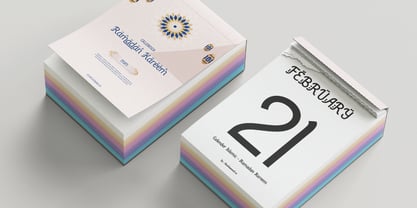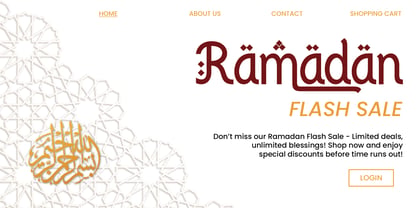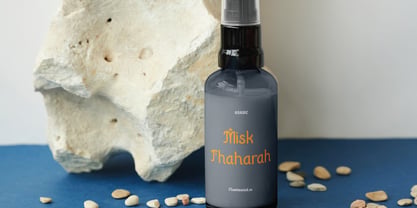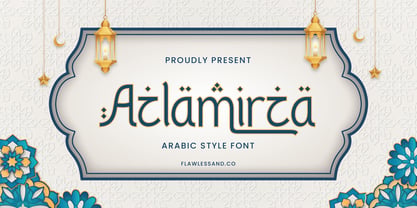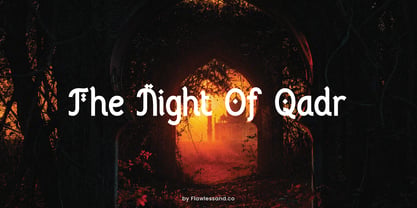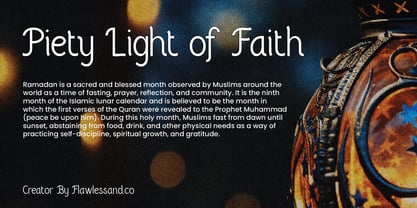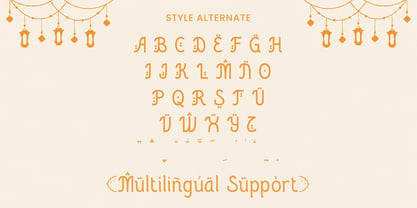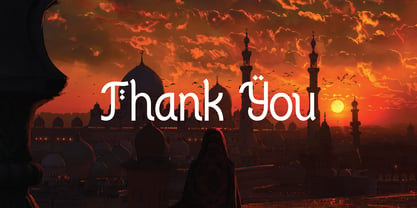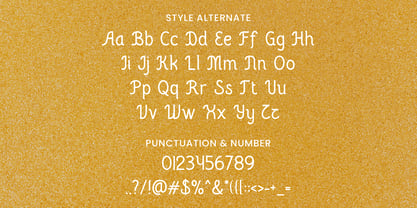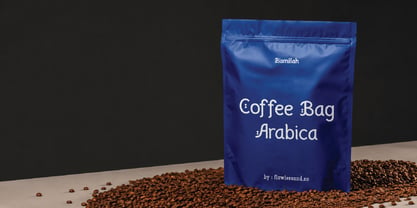
Azlamirza
Die Schriftfamilie Azlamirza wurde von Achmad Yani entworfen und von Flawlessandco veröffentlicht. Azlamirza enthält 1 Stile. Mehr über diese Familie
Azlamirza is an Arabic-style font that blends traditional Middle Eastern aesthetics with a modern touch. Its elegant curves and cultural essence make it suitable for Ramadan designs, Islamic event posters, restaurant branding, packaging, invitations, and social media content. Perfect for adding an authentic Arabic feel to your creative projects.
Features :
Multilingual, Uppercase alphabet A-Z, Lowercase alphabet a-z, Numbers 0-9, Some punctuation, Alternates and Ligatures